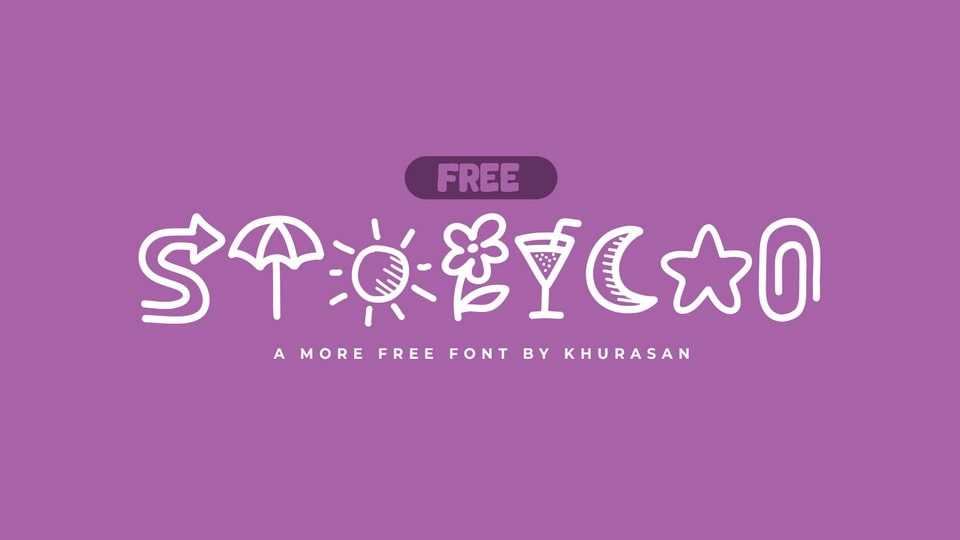
Download Storycan font, a hand crafted typeface that transcends conventional boundaries by turning letters into whimsical symbols. Each character is a playful doodle, carefully crafted to evoke a sense of joy and creativity.